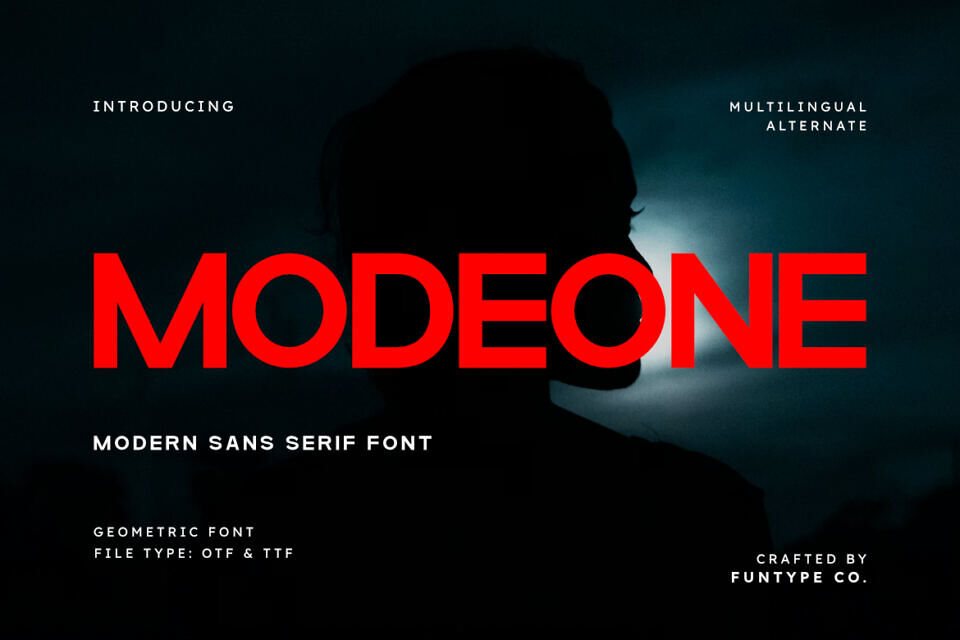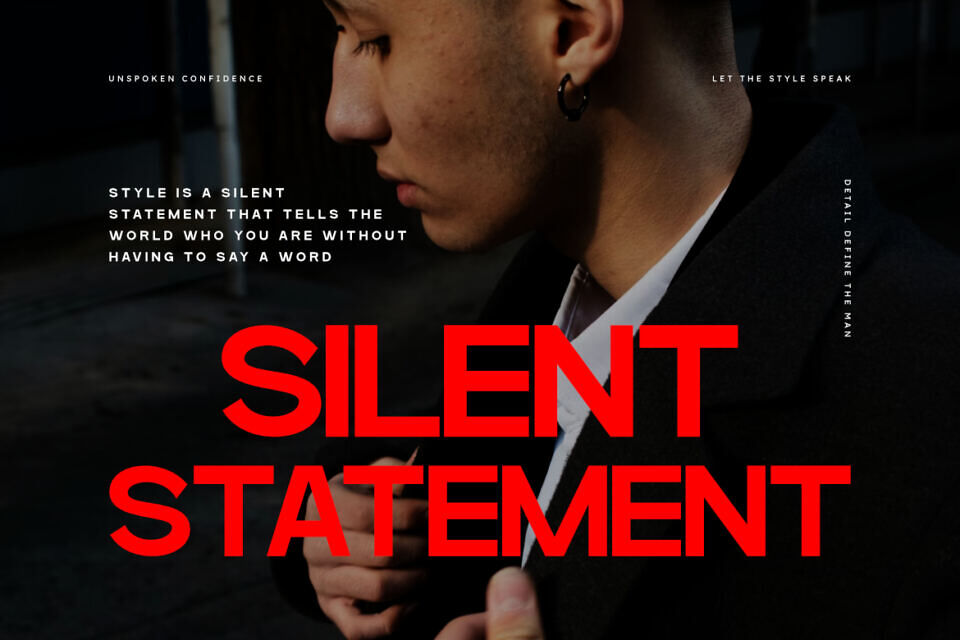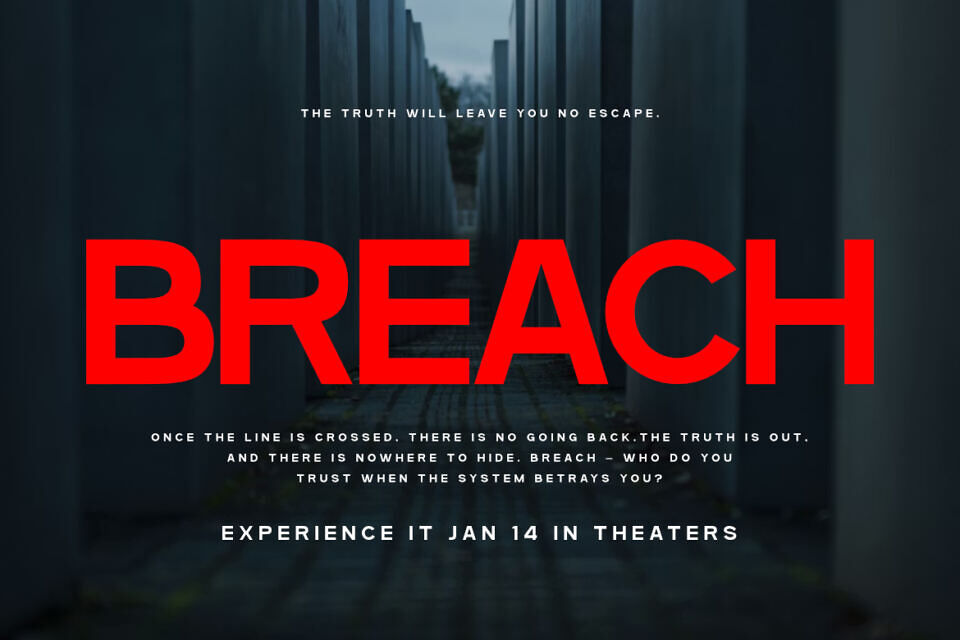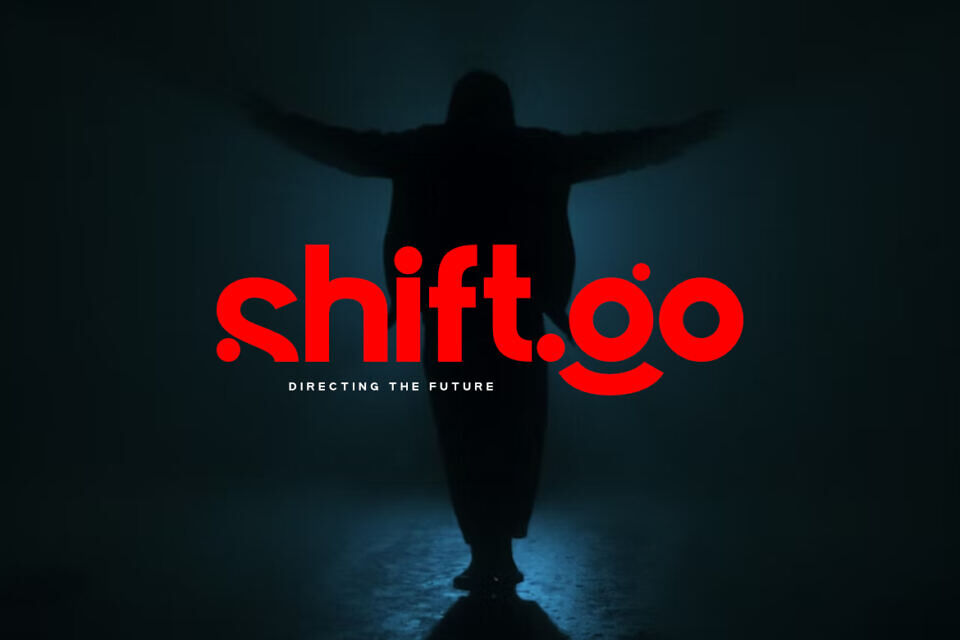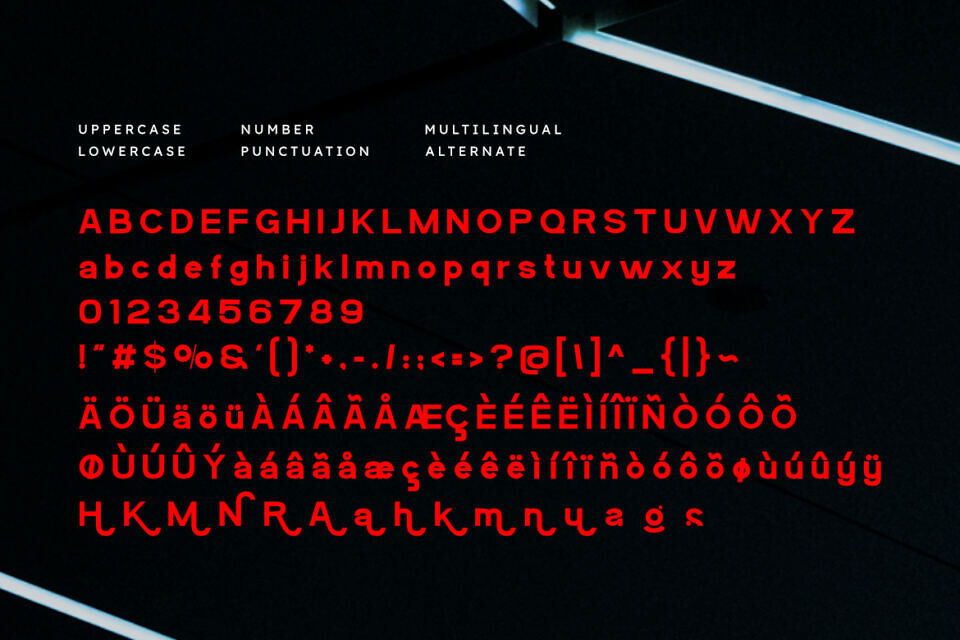
Modeone Font
Modeone is a clean, versatile modern bold geometric sans serif font designed for high-impact visual communication and professional layouts. Its balanced geometric structure and solid weight make it an outstanding choice for dominant headlines, modern branding, editorial design, and sophisticated logo projects.
Modeone offers a perfect blend of minimalist style and powerful presence, ensuring your creative work remains clear, contemporary, and unforgettable across both digital and print platforms.